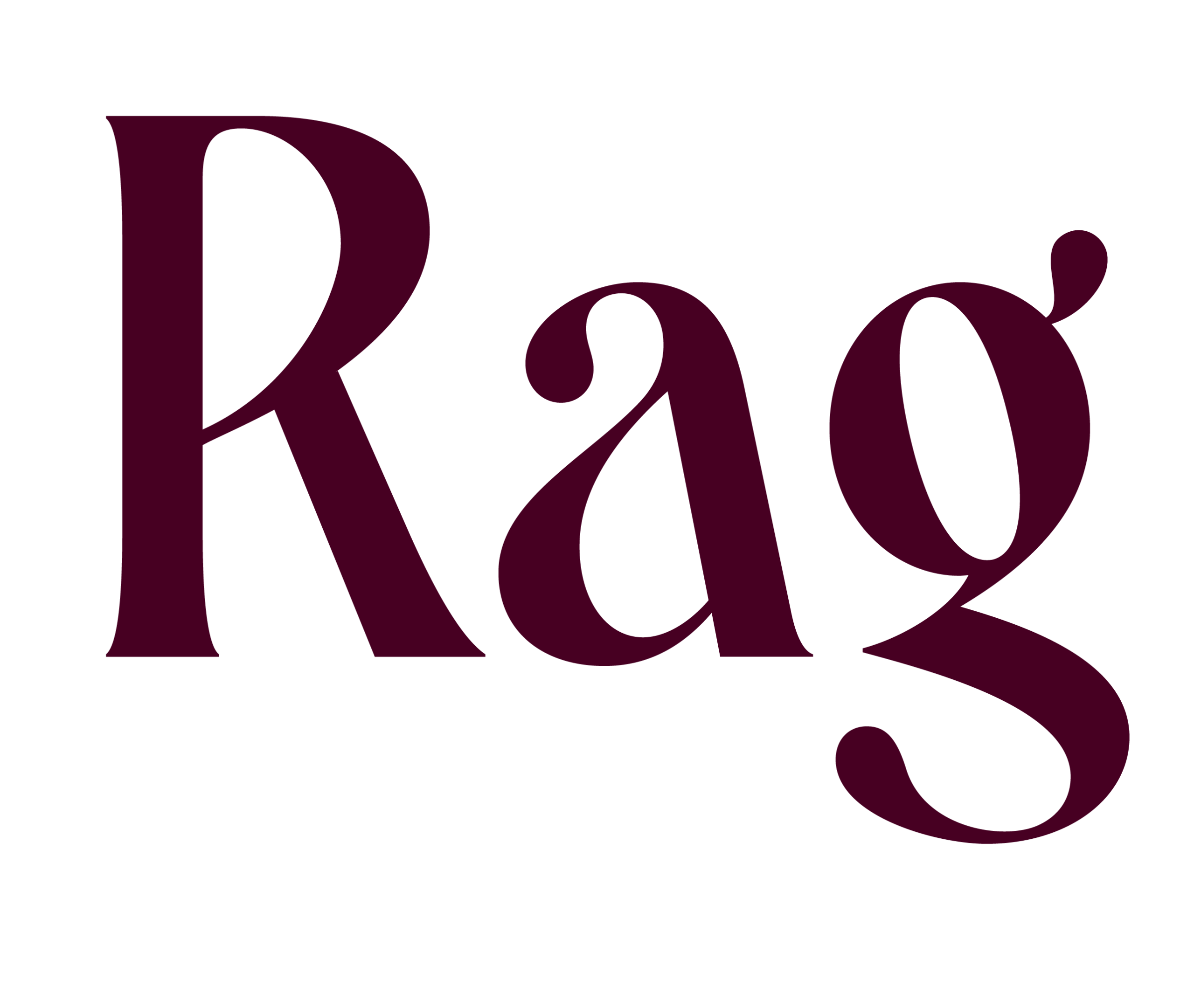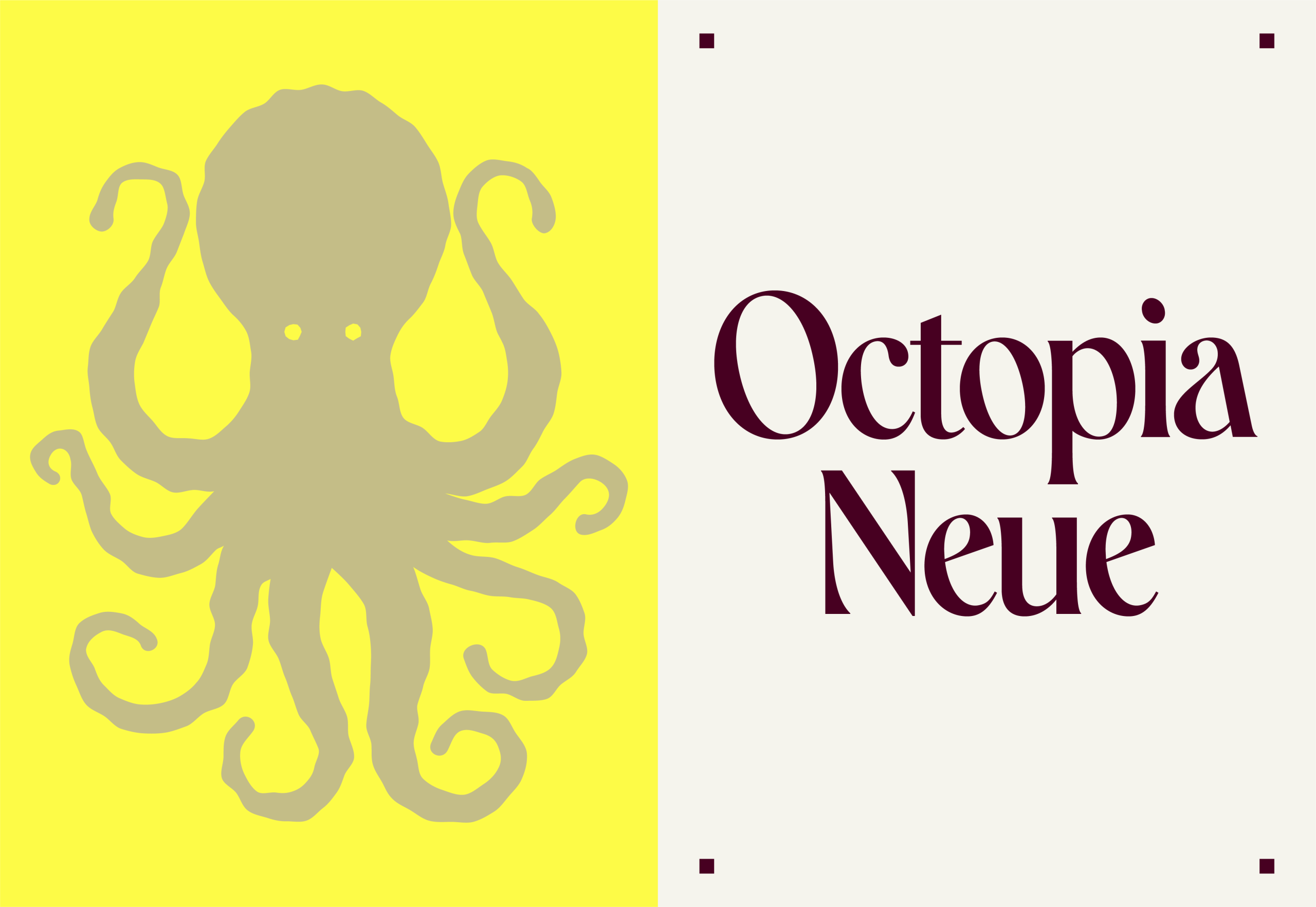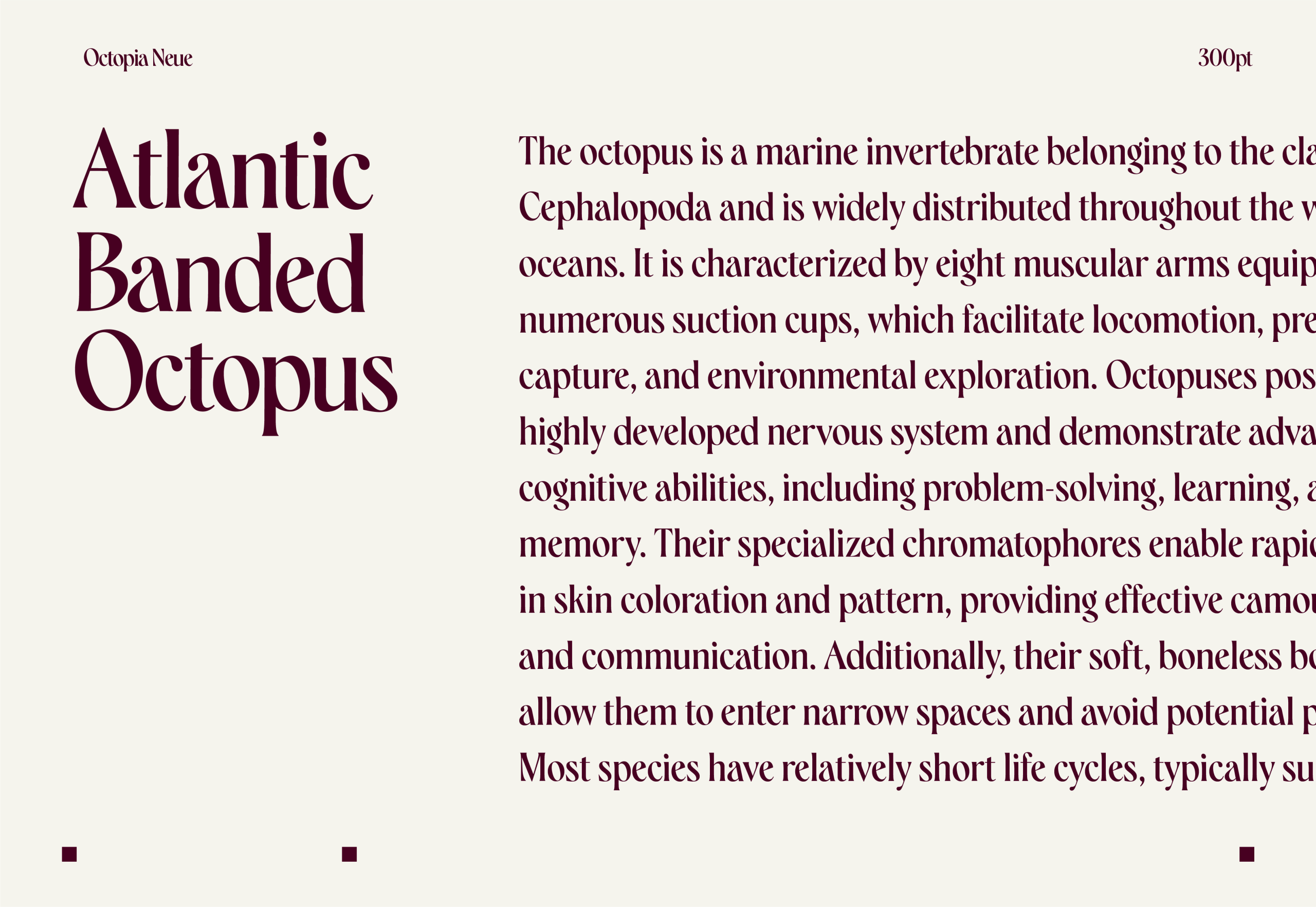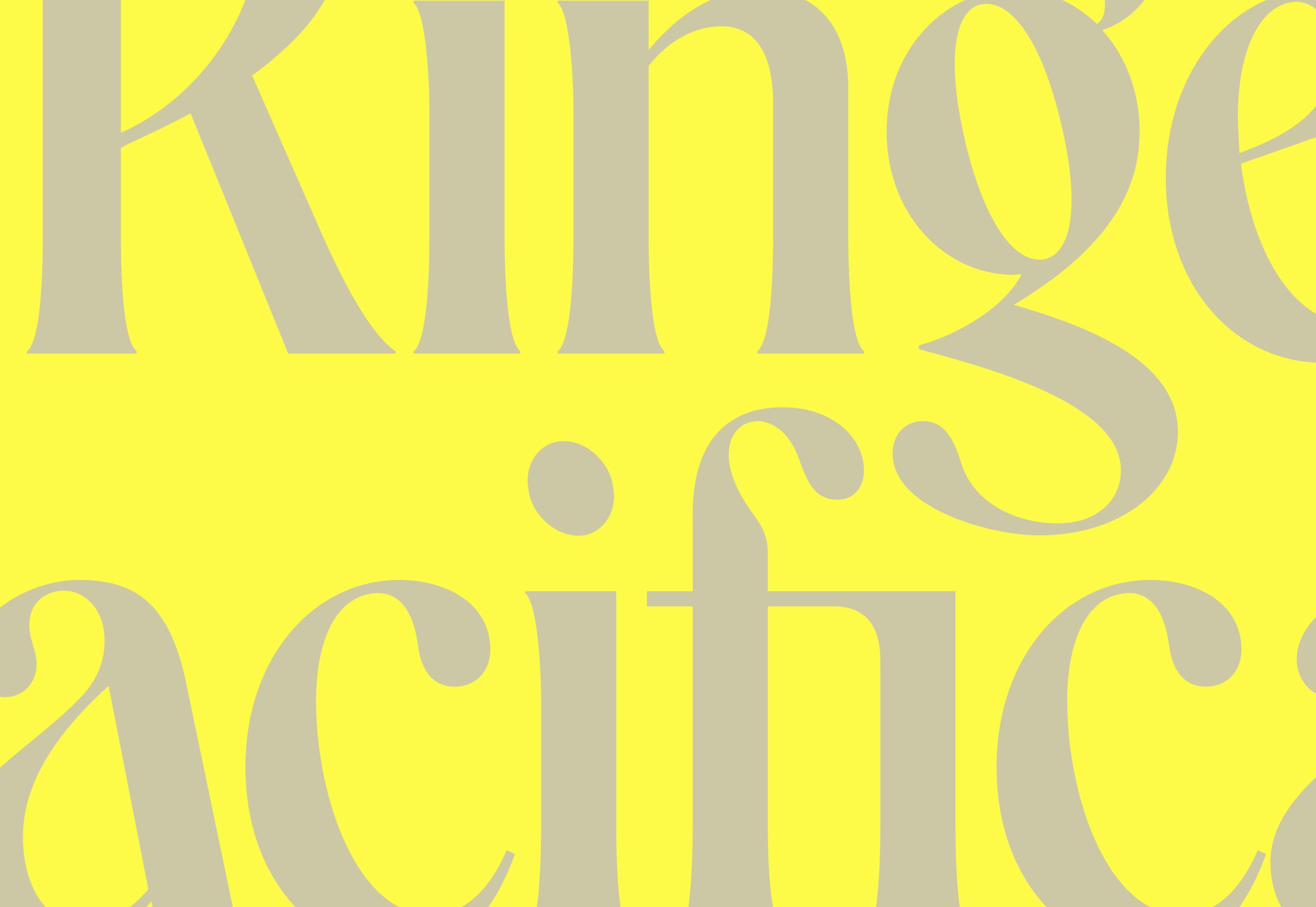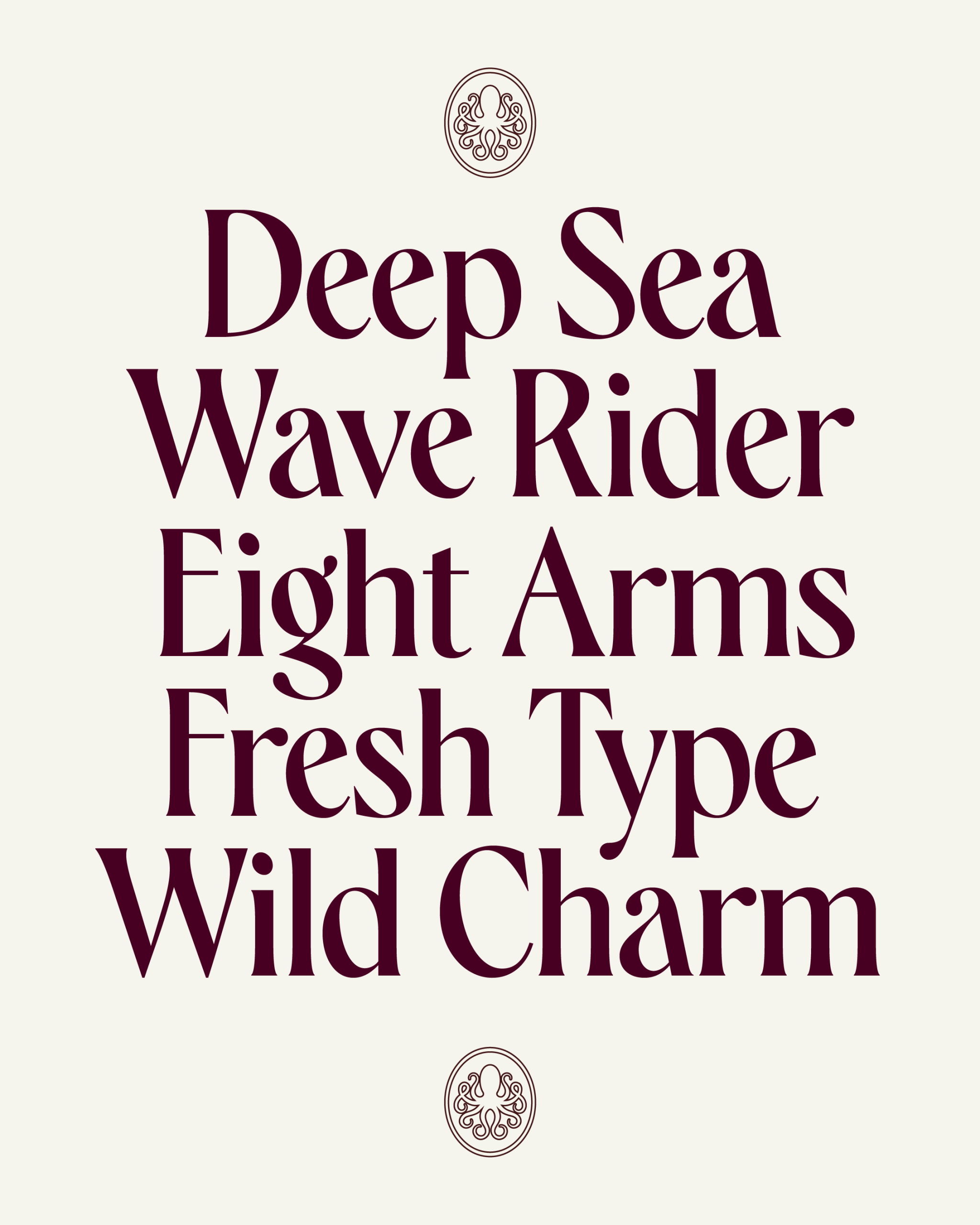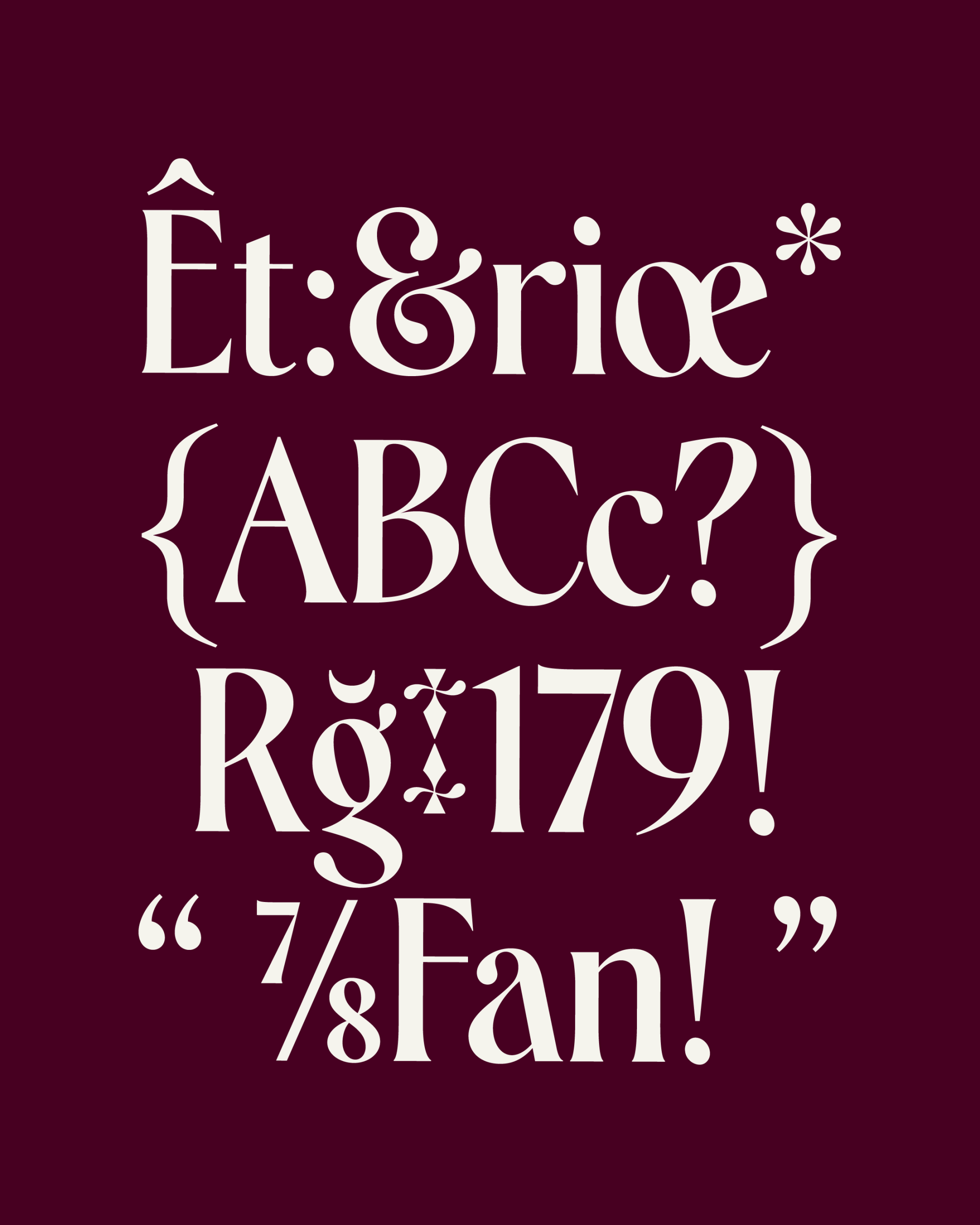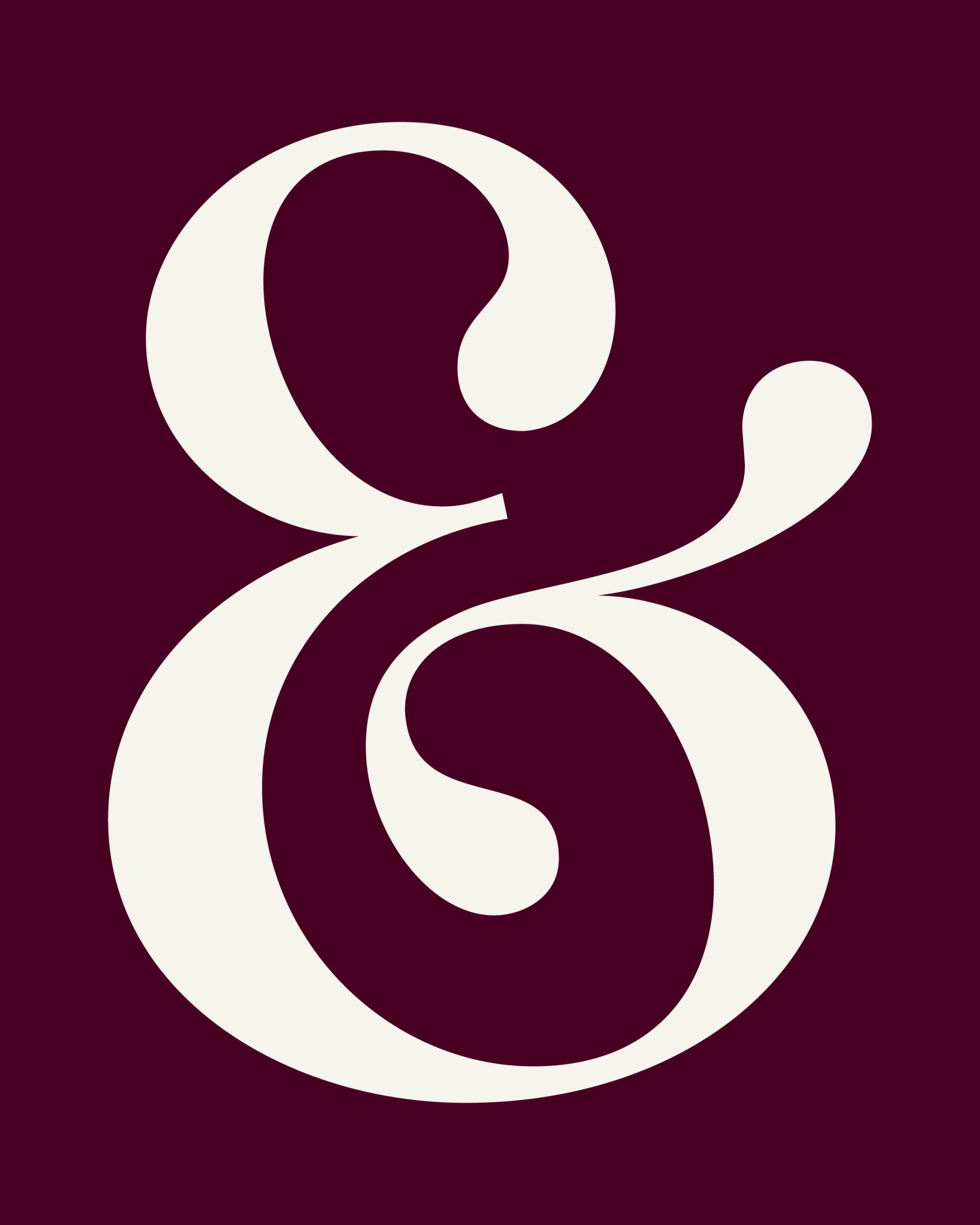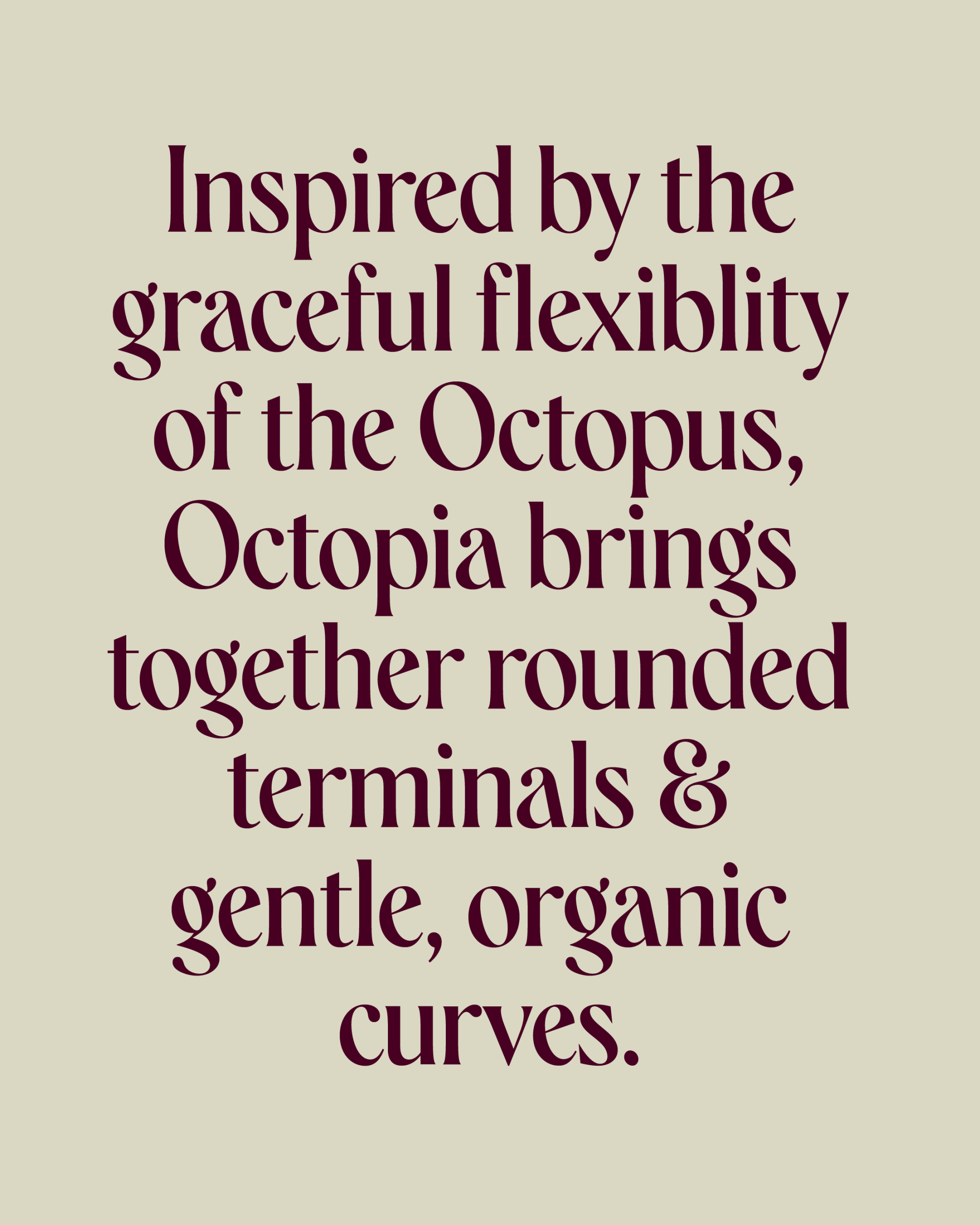
Octopia Neue began as a collaboration between Death of Typography and Yellow Octopus. Inspired by the octopus (a creature defined by flexibility and grace), the typeface softens its structure through rounded terminals and fluid curves. Elegant, restrained, and built for today's design world.
A Collaboration Come To Life
This typeface was crafted in collaboration with design agency, Yellow Octopus. This has been released as an open source font, shared freely in the same spirit of generosity.
Type Designer: Lee Qiu Wen
Production: Death of Typography
Original Designer of Octopia: Lau Shu Hui
Overall Direction and Oversight: Yellow Octopus